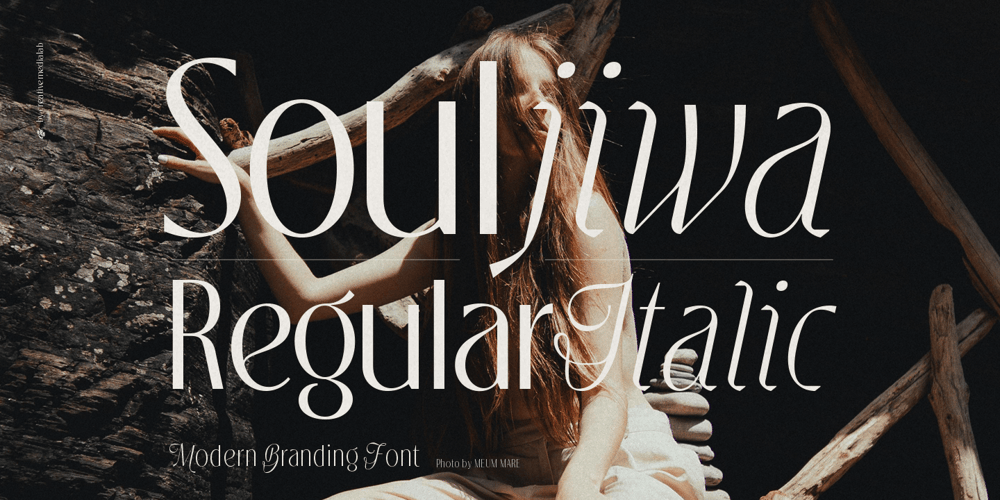
Souljiwa Font Family was designed by Kadek Mahardika and published by Creativemedialab. Souljiwa contains 14 styles and family package options. Introducing Soujiwa: a modern, elegant, classic typeface with Script italics. It includes seven weights, ranging from thin to black. Soujiwa is ideal for fashion-related concepts, cosmetics branding, luxury and elegant designs, classy or high-end branding, logos, and more.